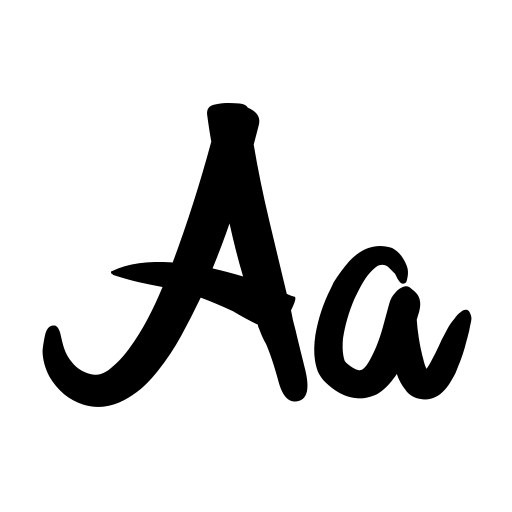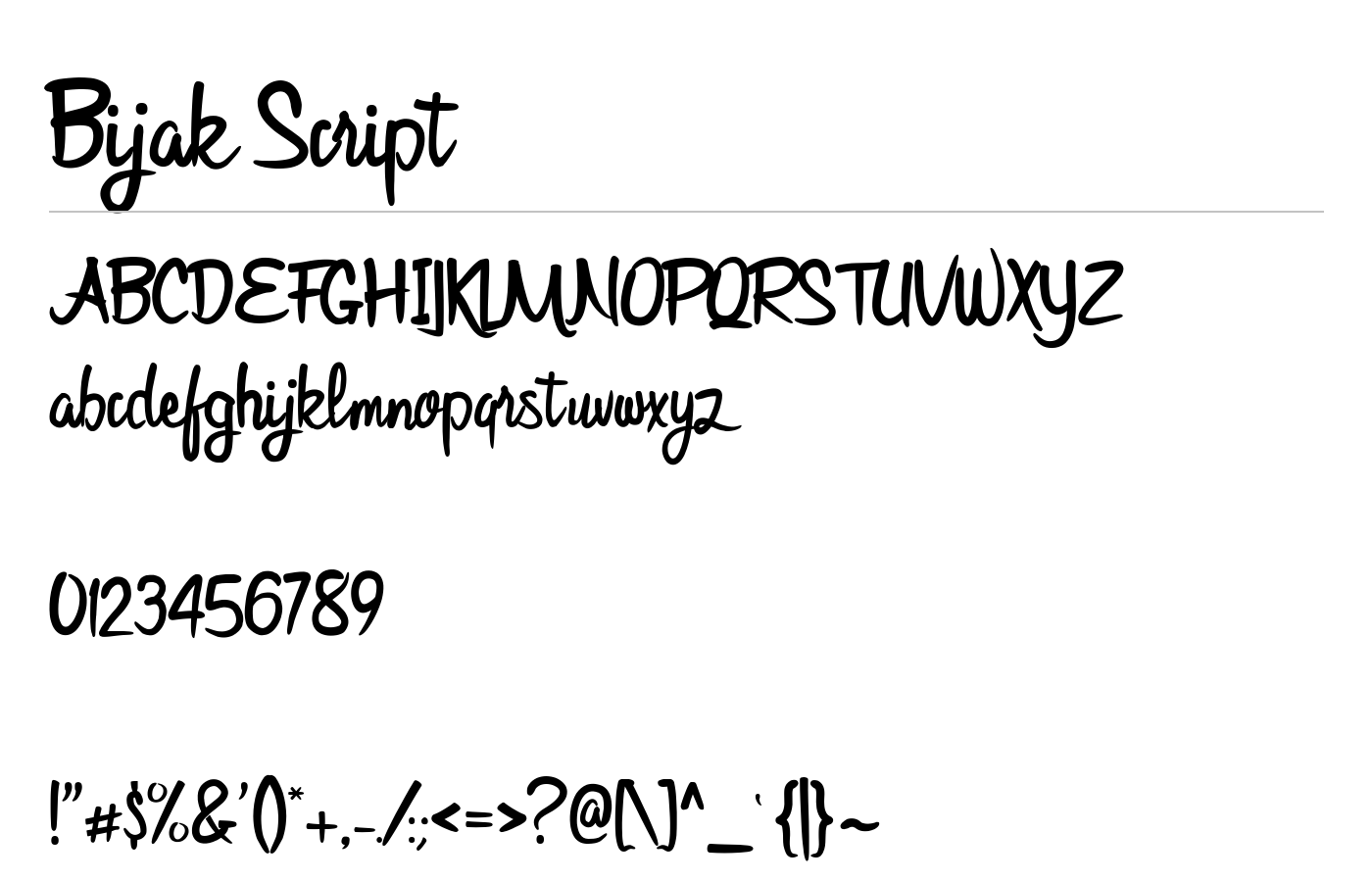
Bijak Script is a lively and casual handwritten script font that features playful, slightly irregular letterforms with smooth, rounded strokes and a moderate x-height. Its friendly personality and informal style make it ideal for creative projects, branding, invitations, and any design seeking a warm, approachable feel. This font works best in headlines or short texts where its charming, human touch can stand out without compromising readability.
Bijak Script Font